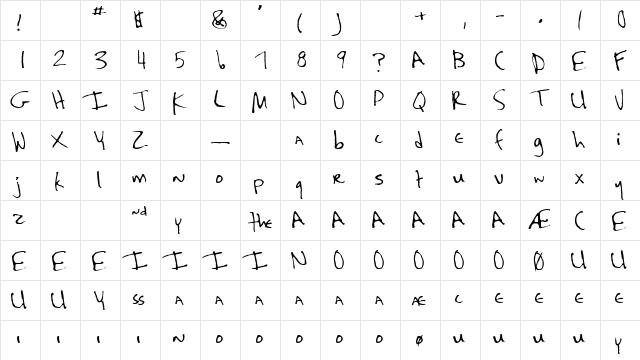
Kaela Regular
Design Context for Kaela
Kaela is a composed and adaptable typeface that performs quietly and consistently across a wide range of design contexts.